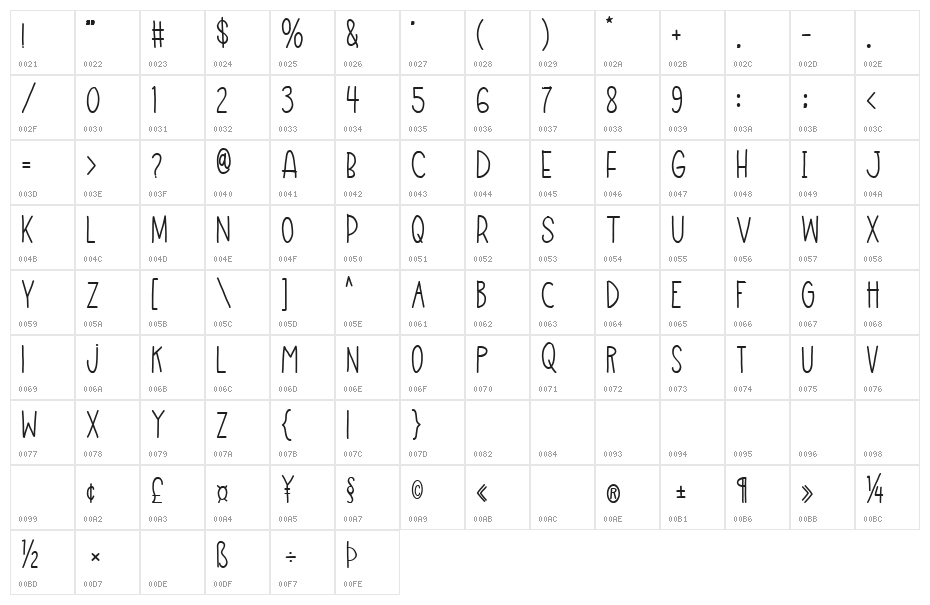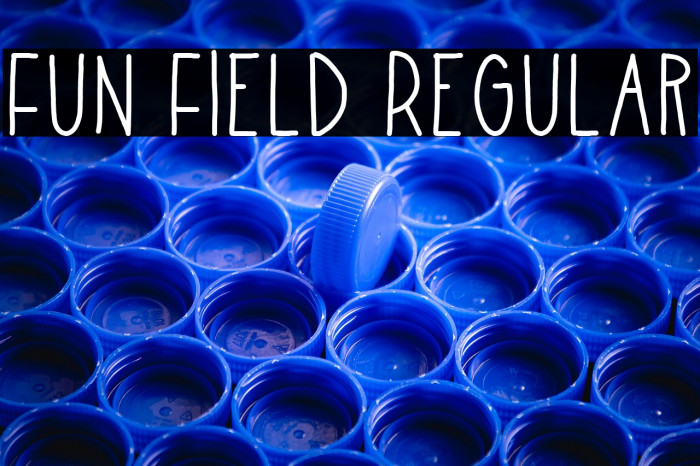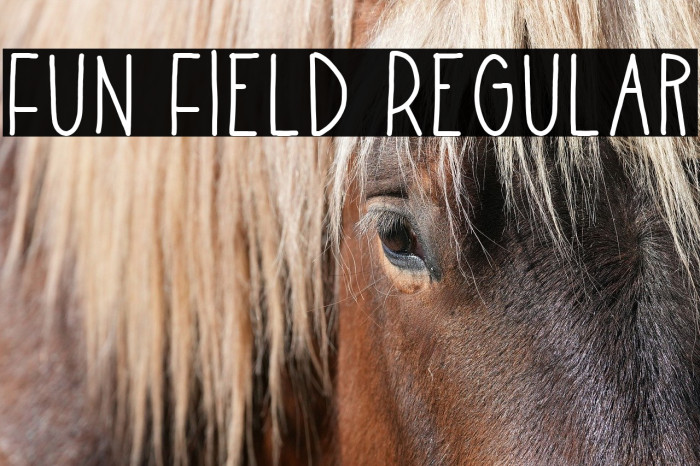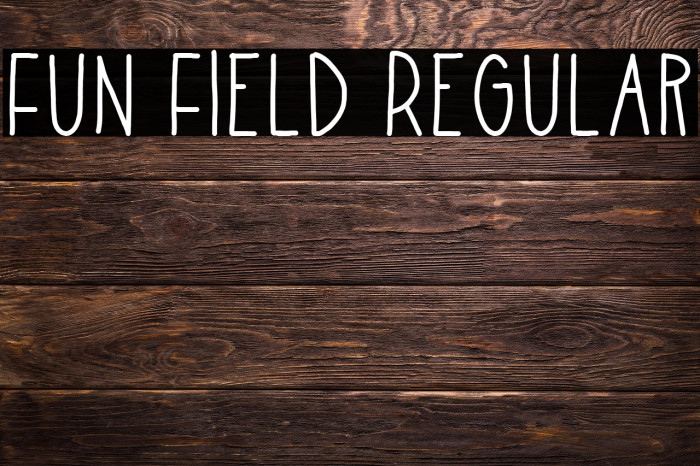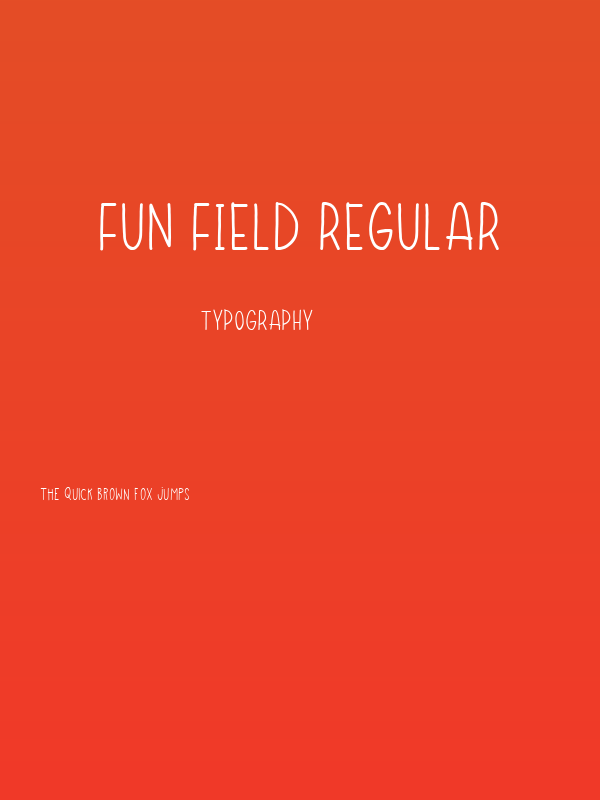
Fun Field Regular Font
Fun Field Regular Description
This playful and whimsical font features a handwritten style with tall, narrow characters. The strokes are consistent in width, giving it a clean and uniform appearance. The letters have a casual, friendly vibe, making it suitable for informal and creative projects. The uppercase and lowercase letters maintain a cohesive look, while the numerals and special characters complement the overall design. Its simplicity and charm make it versatile for various uses.
| Width | Condensed |
| Overall Style | Casual |
| Use Case | Headlines, Logos, Informal Text |
| Proposed Projects | Ideal for children's books, greeting cards, playful branding, and creative posters. |